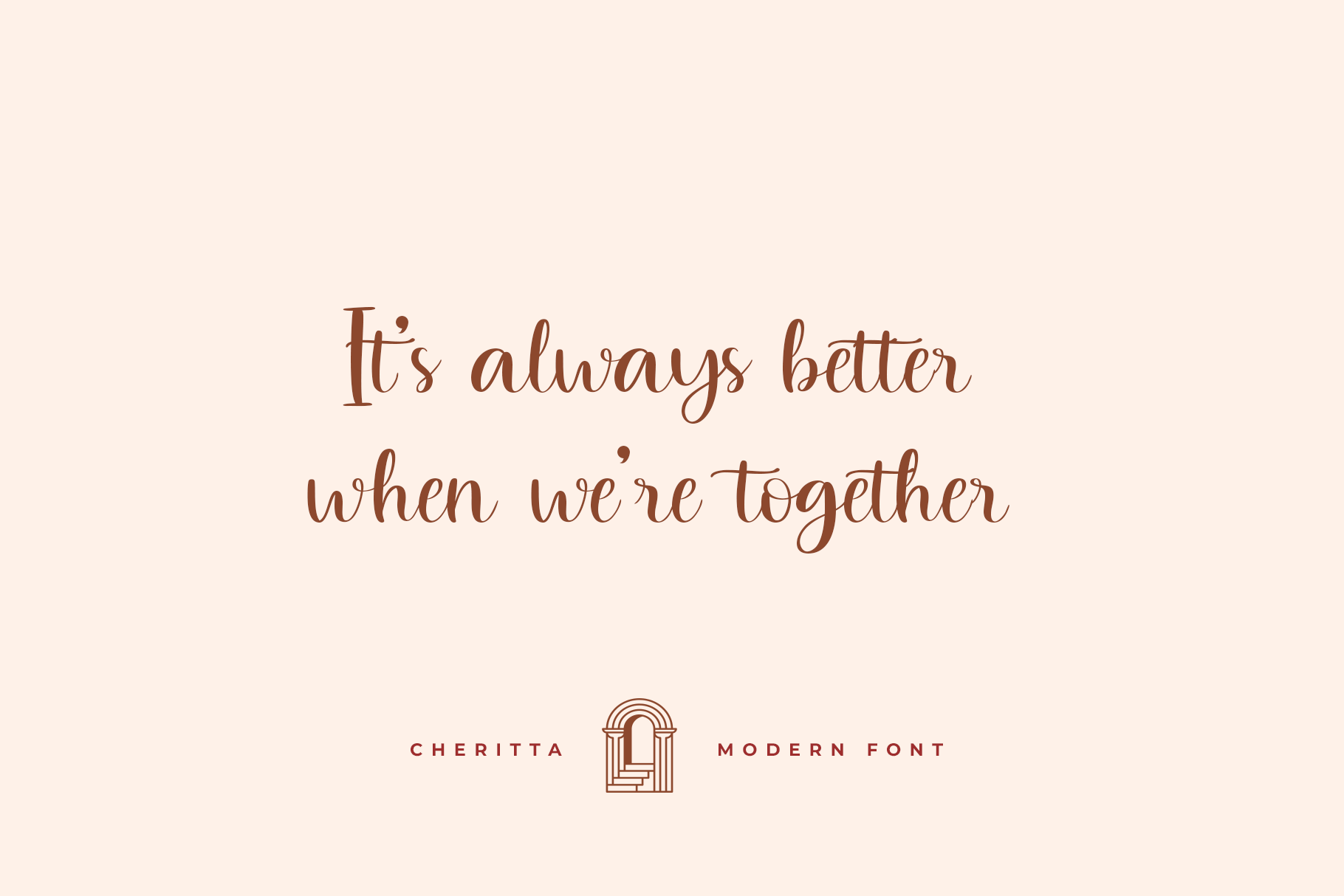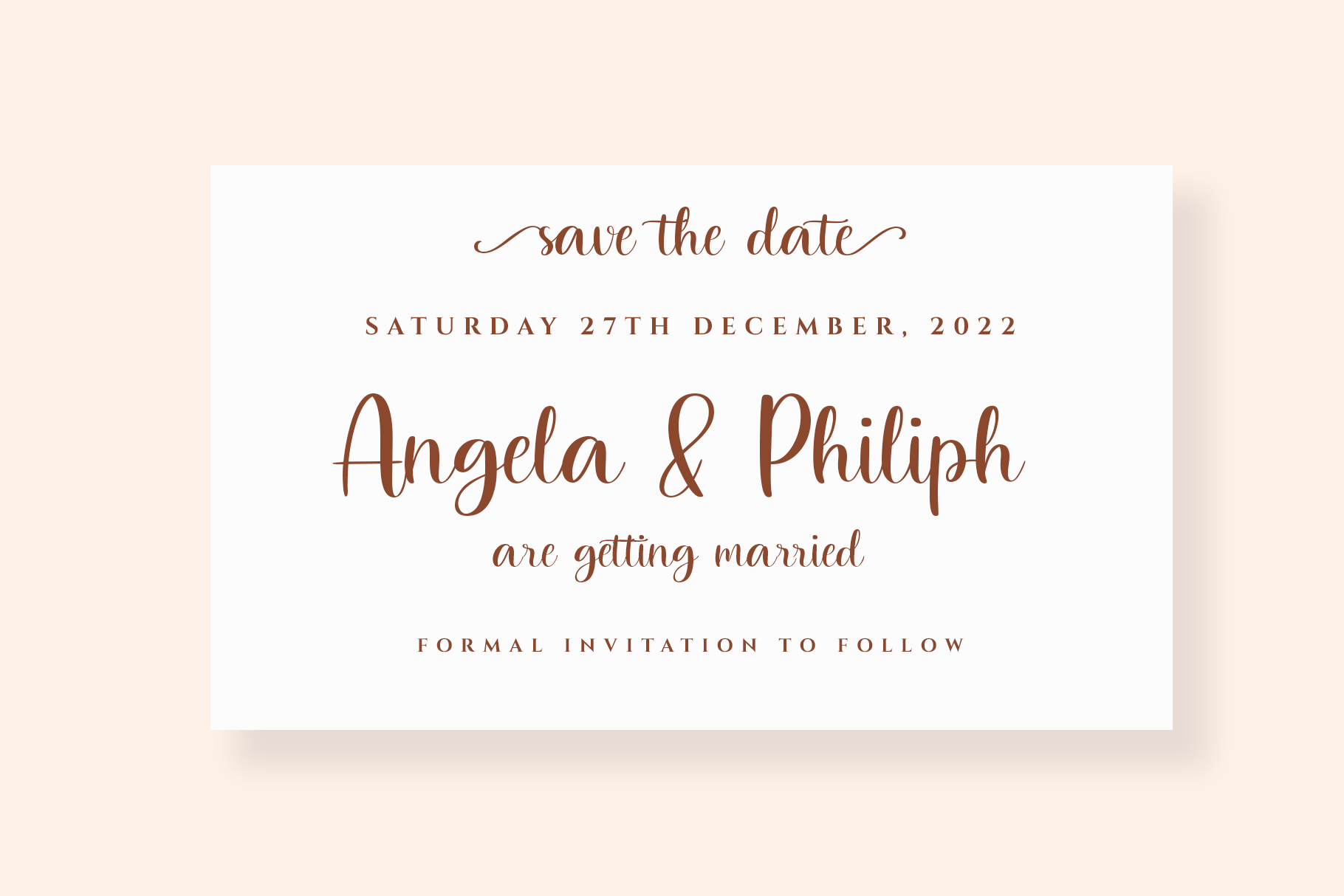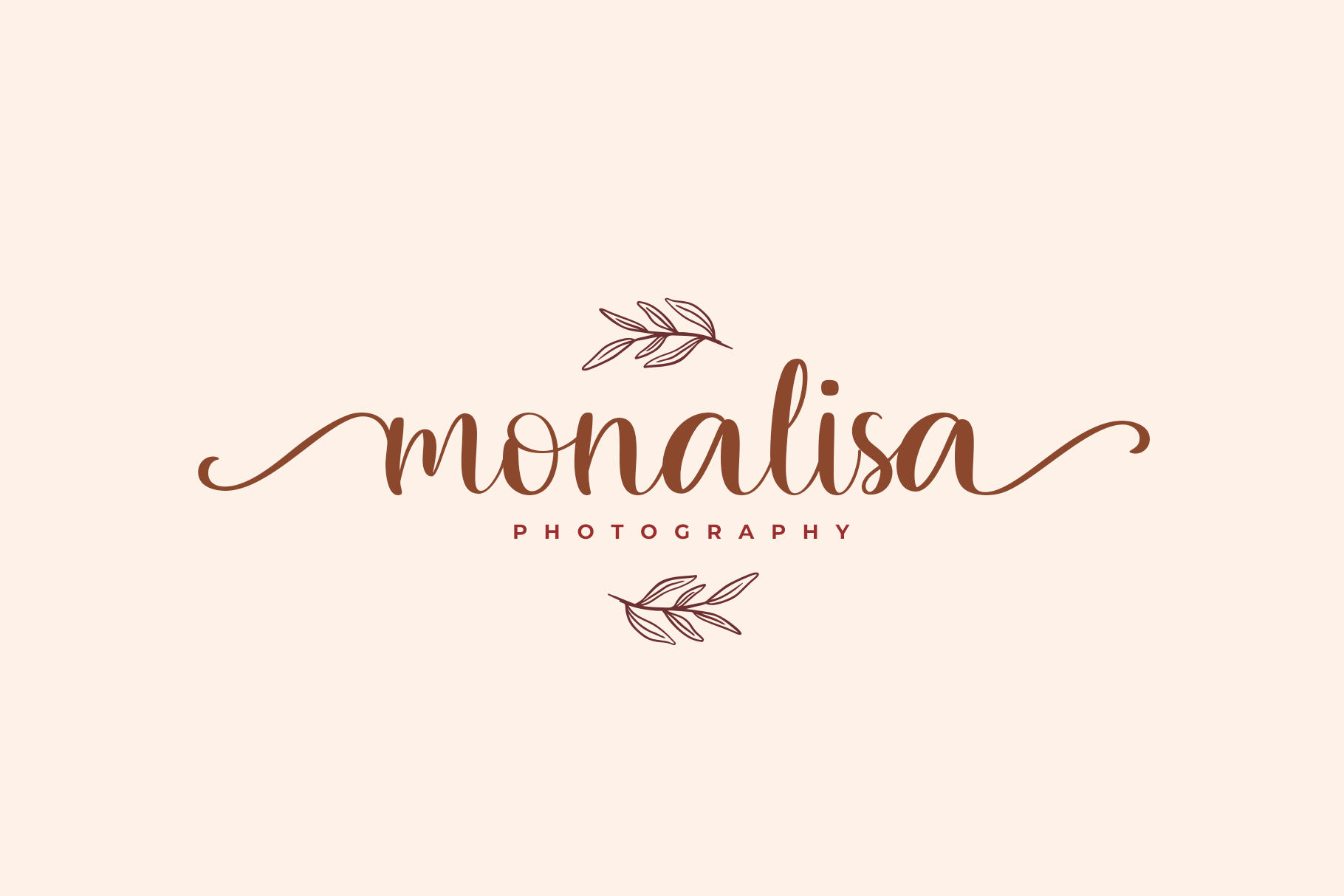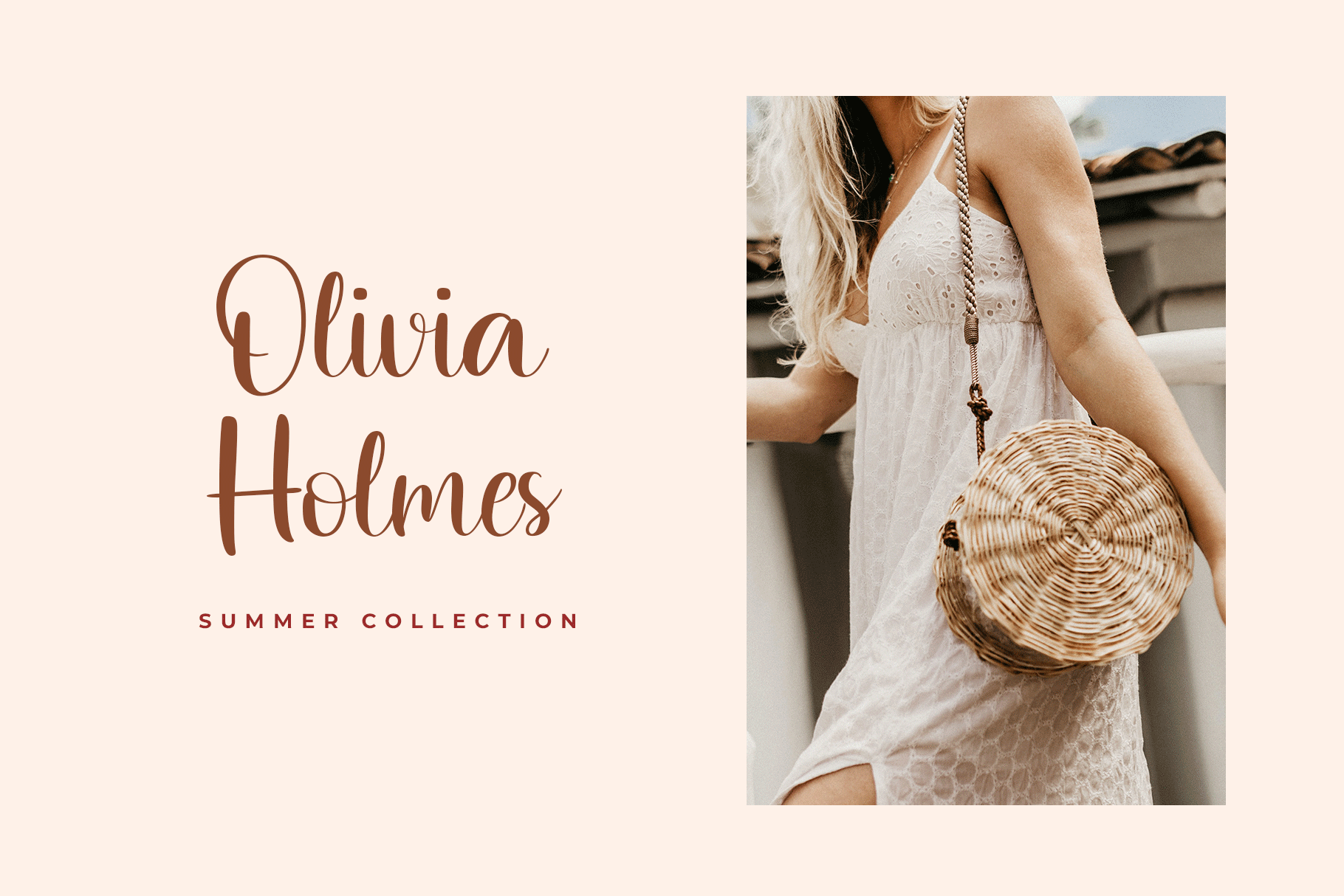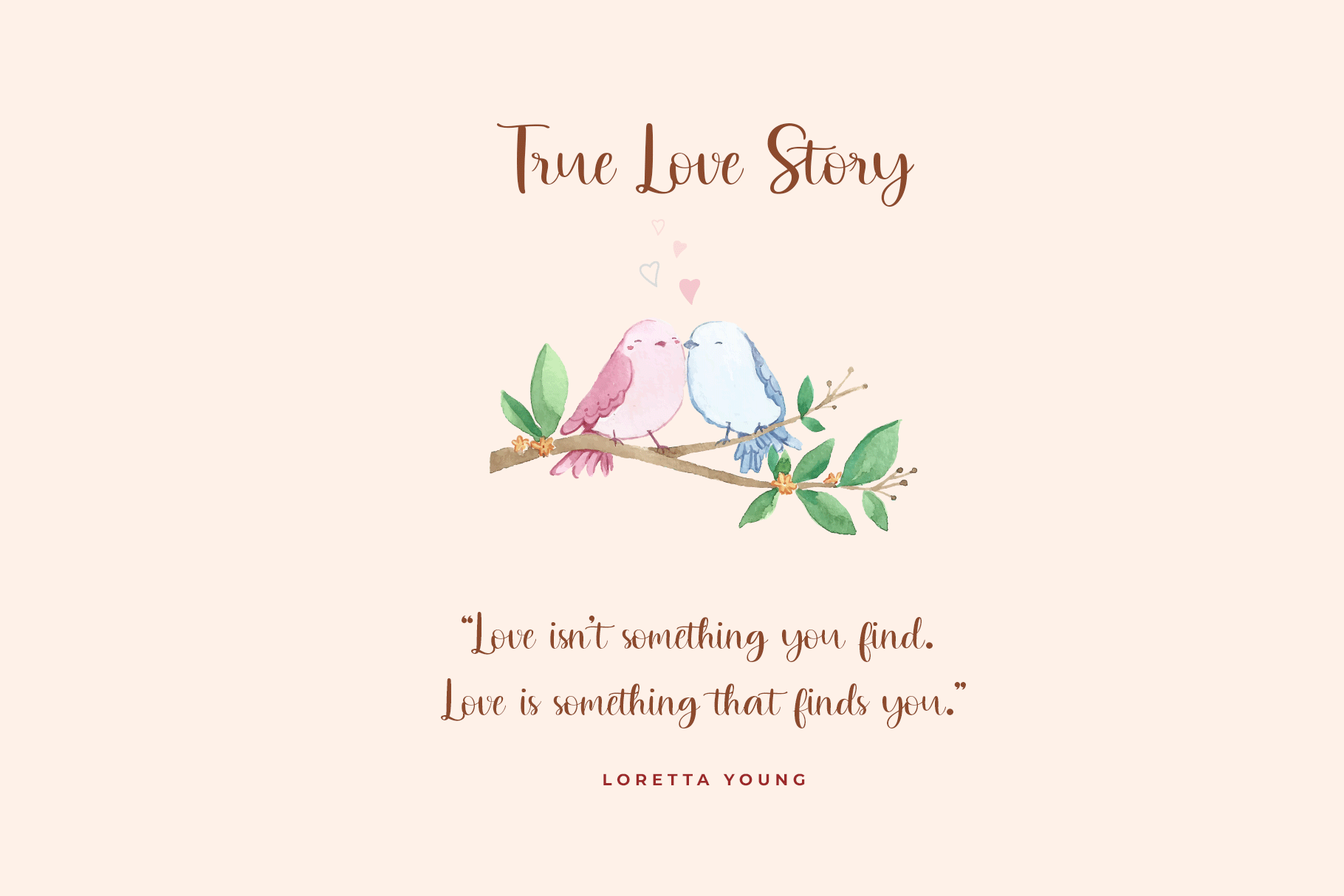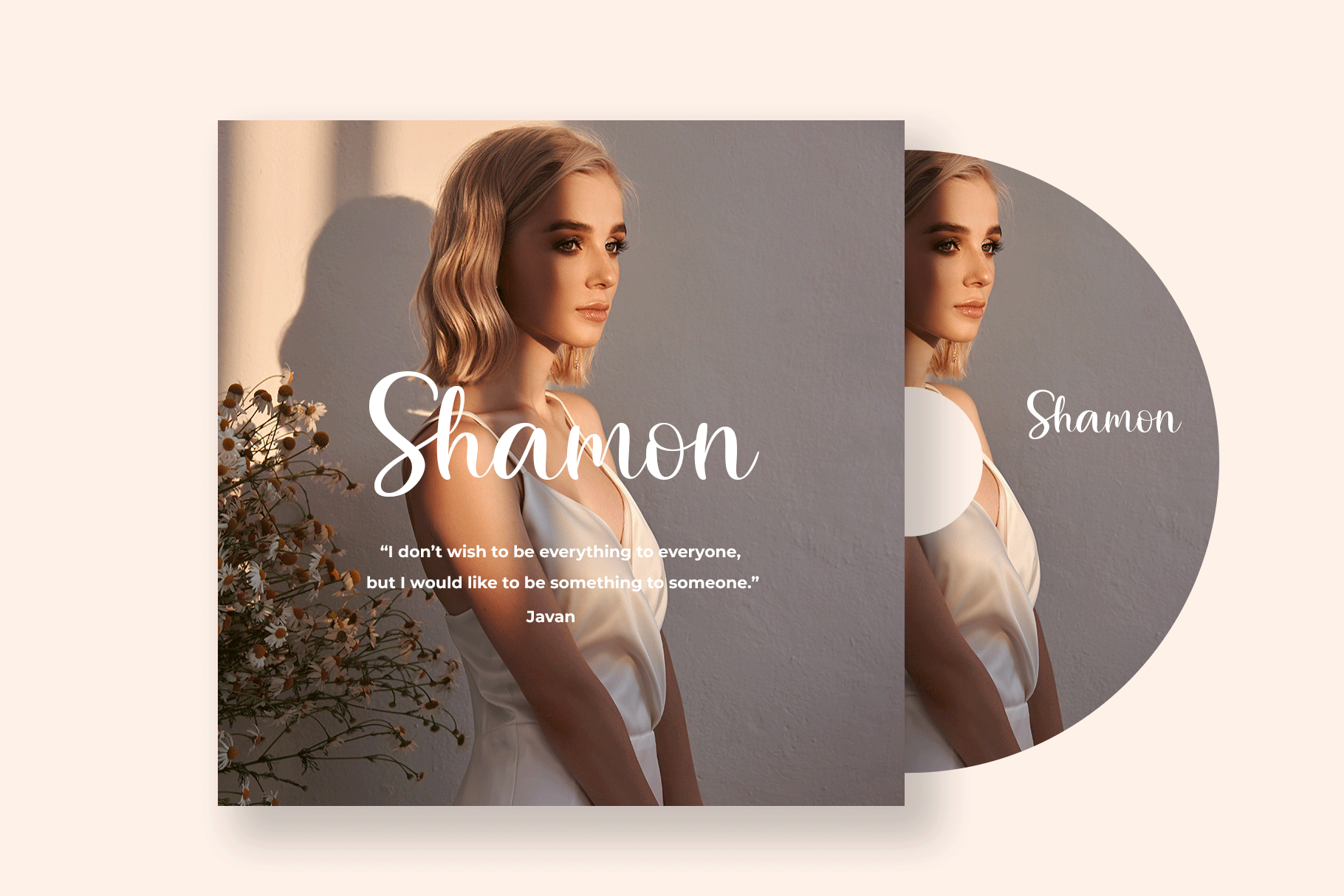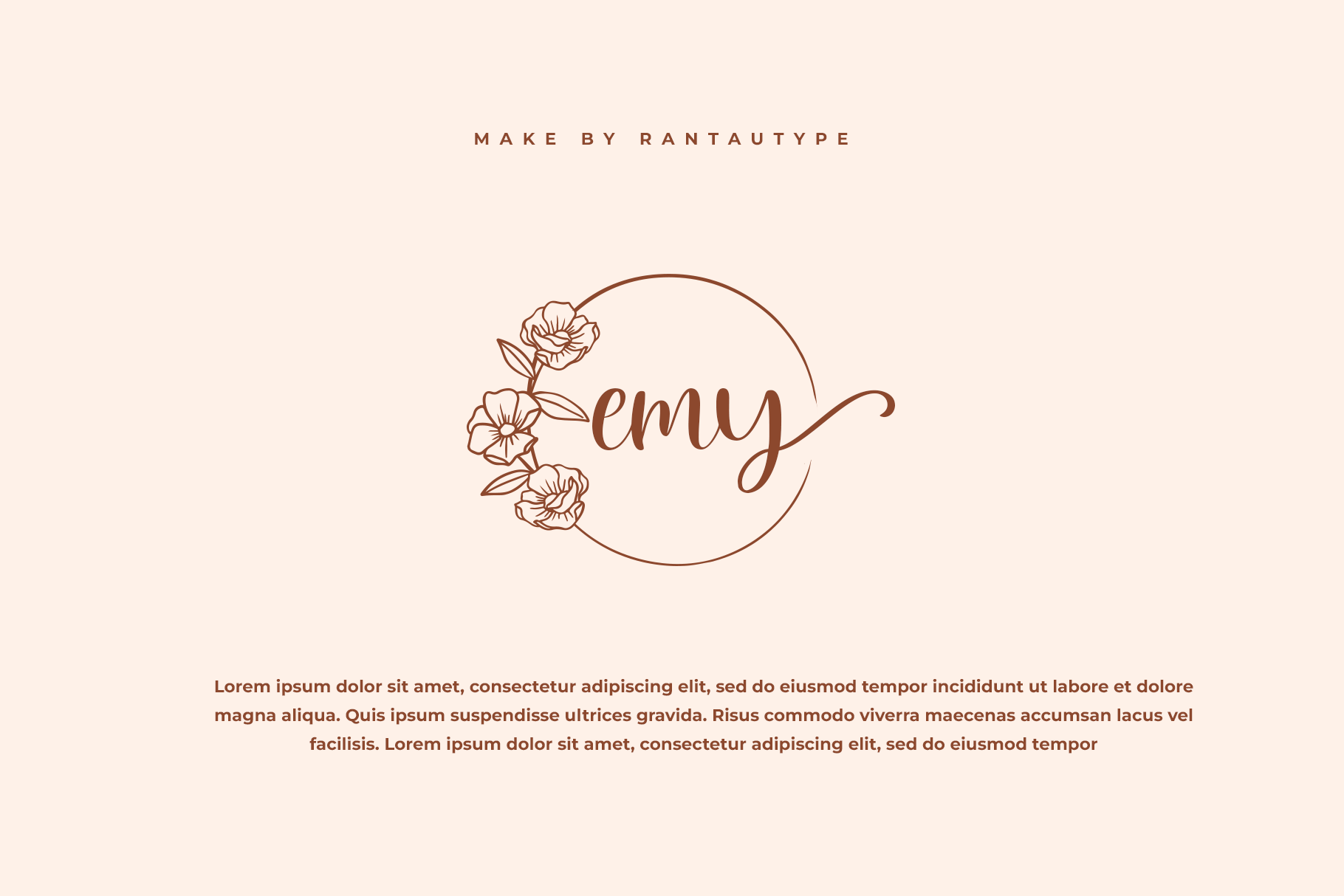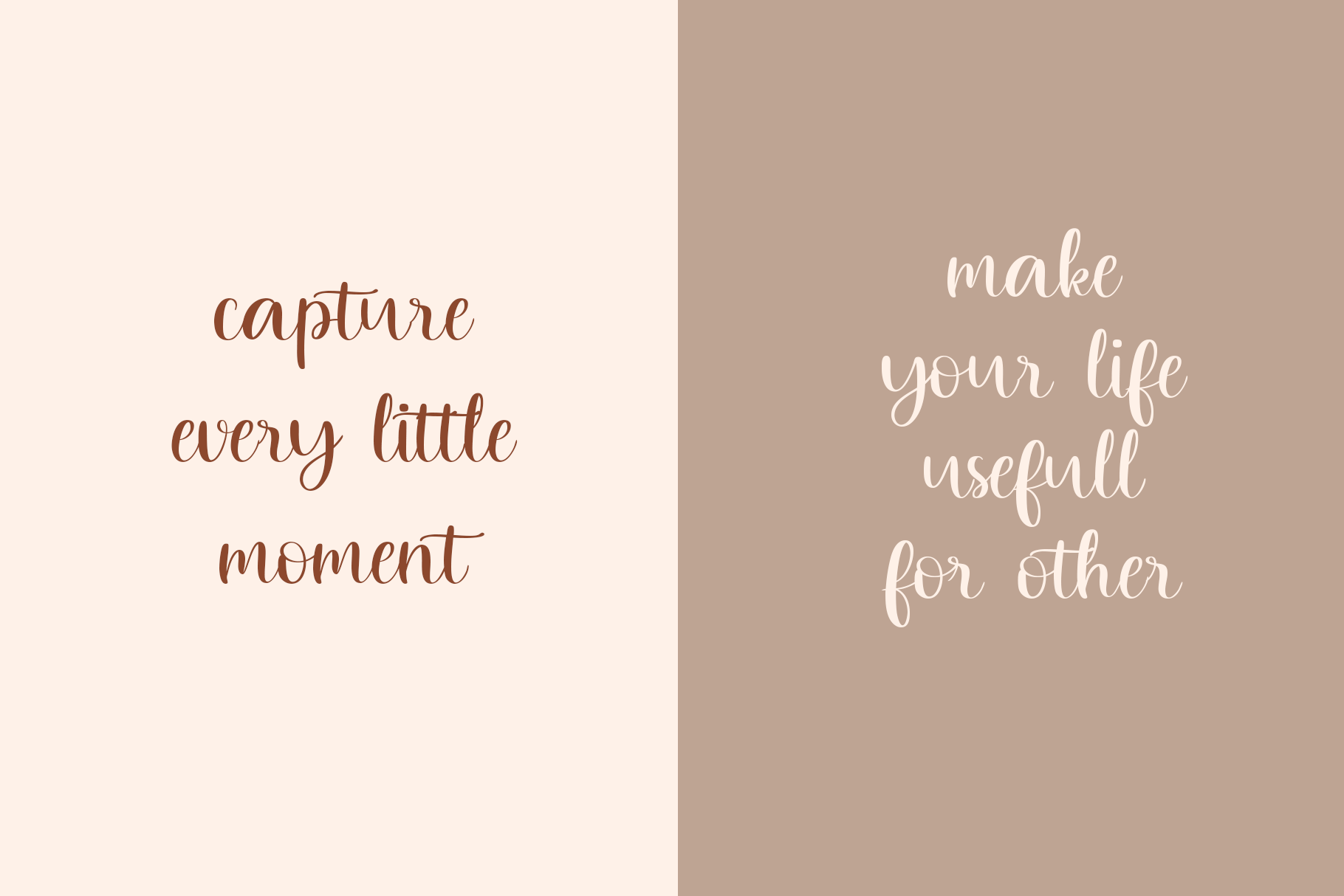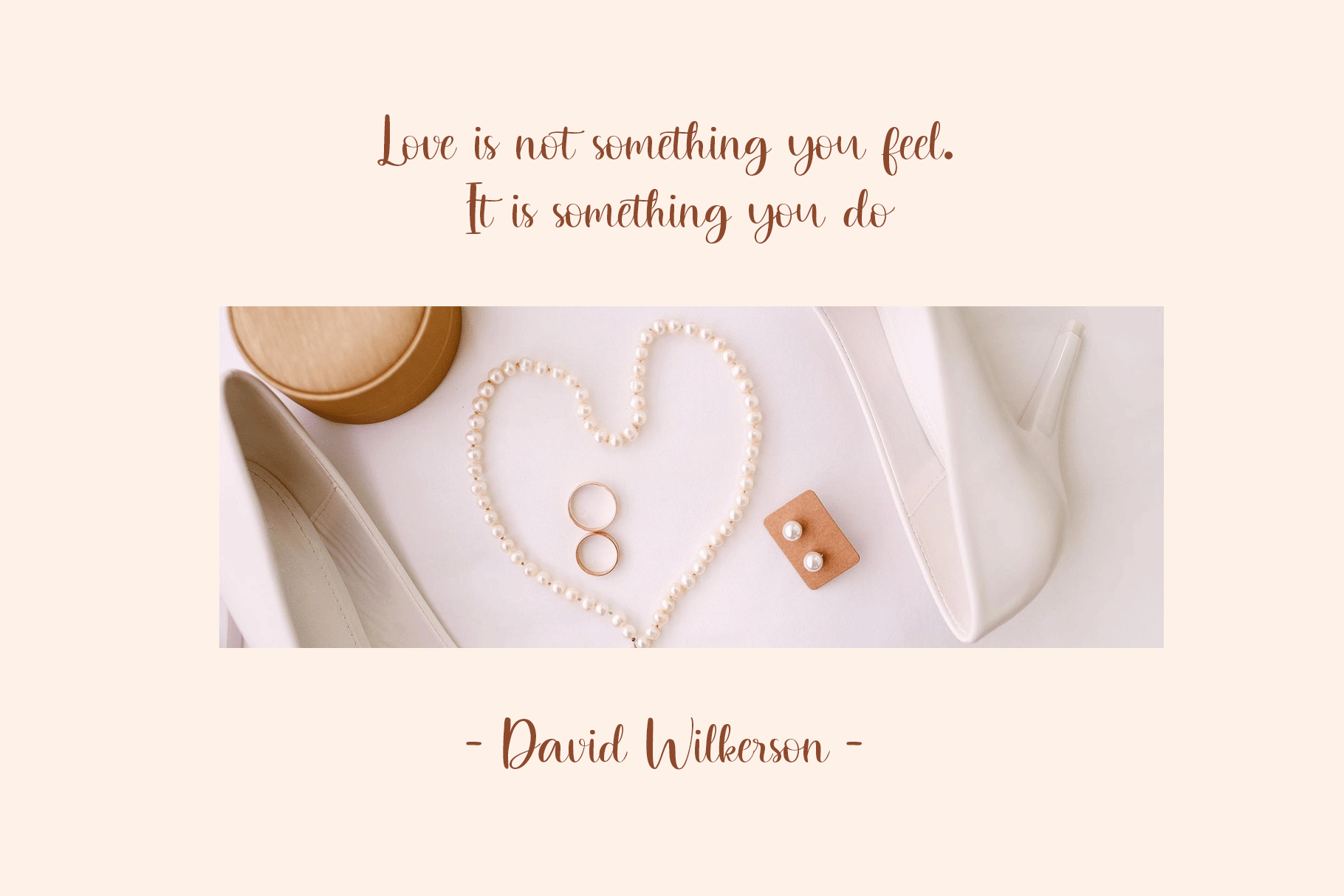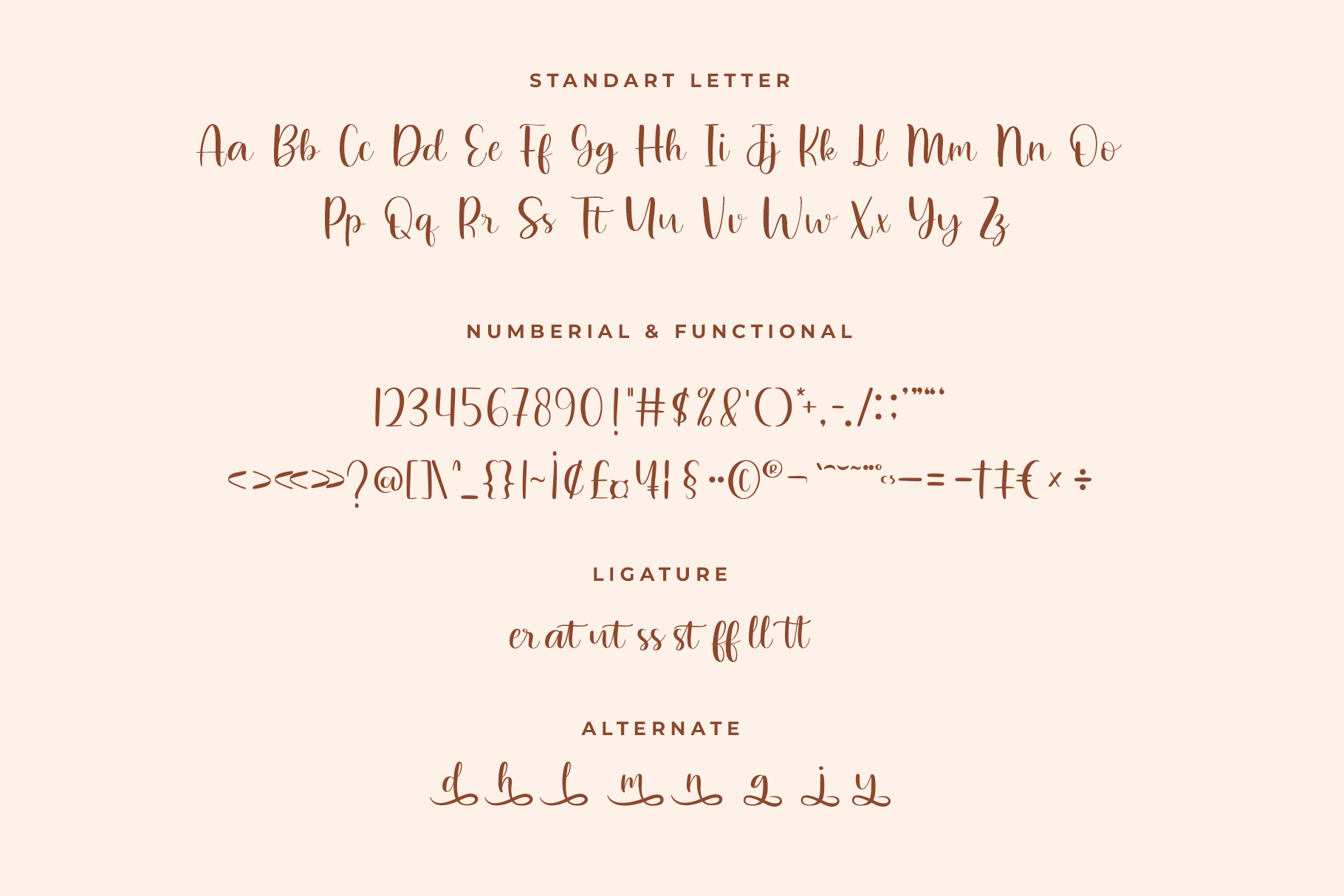
Cheritta Modern Calligraphy Font
Cheritta is lovely fontĀ  which can be interpreted professional. I keep this font looks modern, feminine, girly, catchy and easy to use. Cheritta is the great choice for watermark on wedding organizer, signature or signature logo design, quotes, album cover, business card and many other design project. Cheritta is here to make your work or your business to high level!!!
• Basic Latin A-Z and a-z
• Begin and end swashes